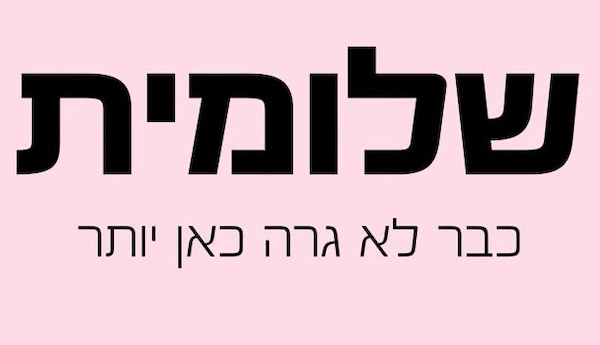
Otostrada MF is a chic and modern fancy display font that was created by Noa David and shared by Noa David. Otostrada MF contains 5 styles along with its family package options. Legible yet elegant font family with a variety of weights.
Otostrada MF Display Font